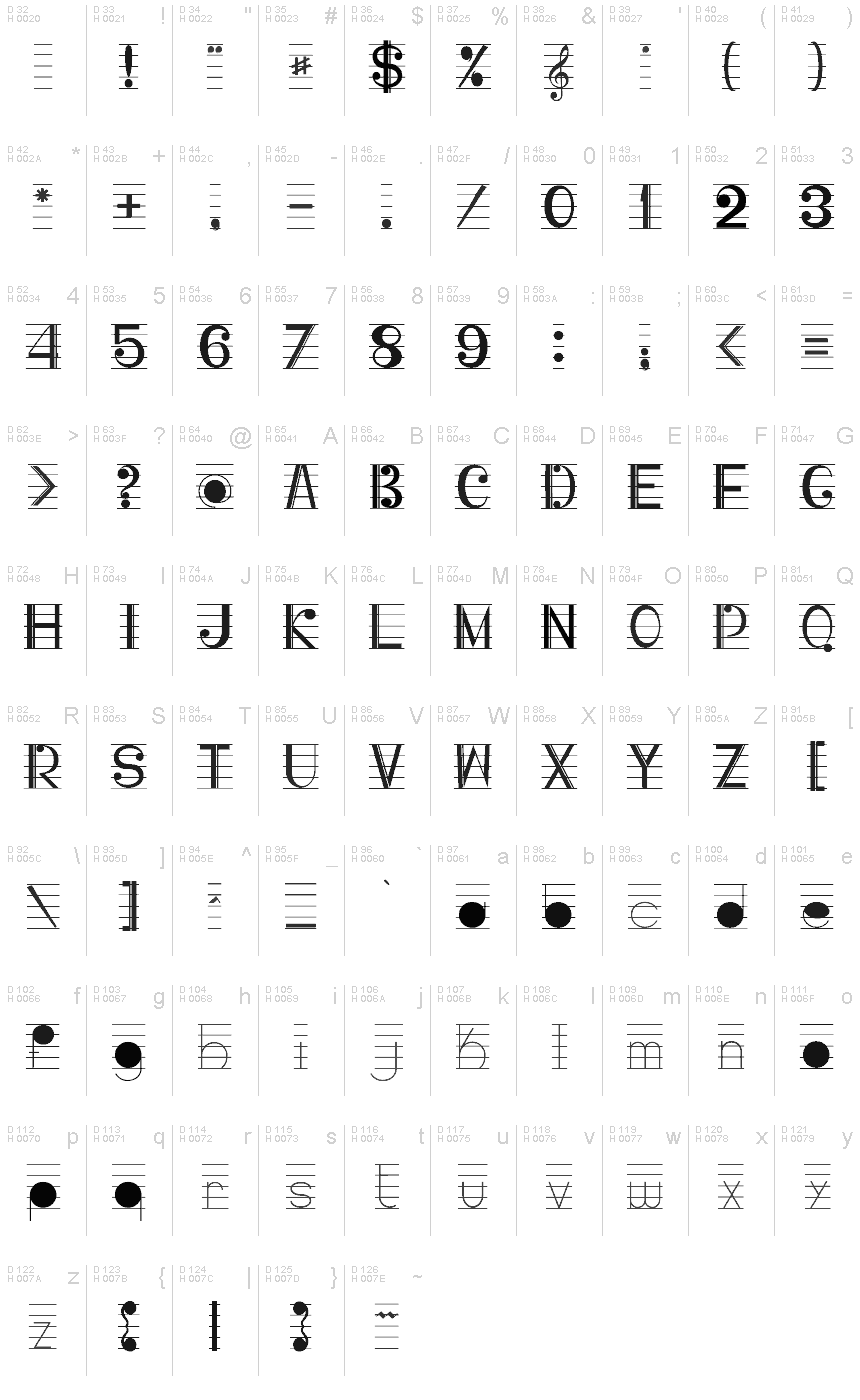
Musicografi
Musicografi is a captivating display font that seamlessly combines the artistic flair of musical notation with a bold, modern aesthetic. Designed by Danilo Miguel, this light and decorative typeface exudes a sense of whimsy and creativity, making it an ideal choice for editorial layouts, album covers, and any design seeking to evoke a musical or artistic sensibility.
The font's distinctive letterforms draw inspiration from the flowing curves and angular shapes of musical notes, creating a harmonious visual rhythm that commands attention. Musicografi's versatility extends beyond its striking appearance, as it can be utilized in a wide range of applications, from branding and packaging to event signage and poster design.